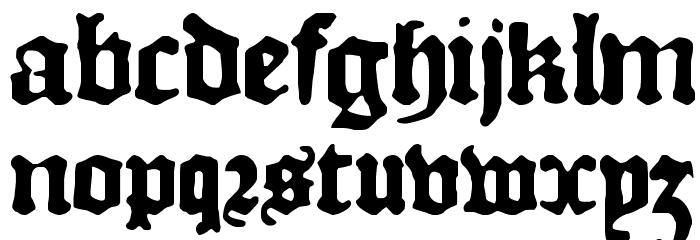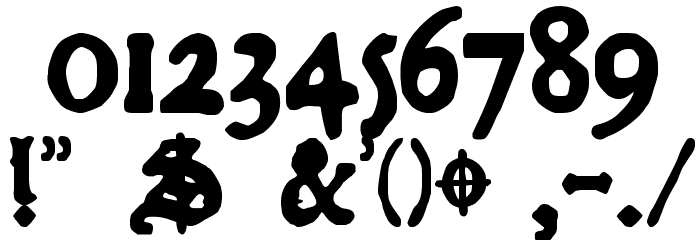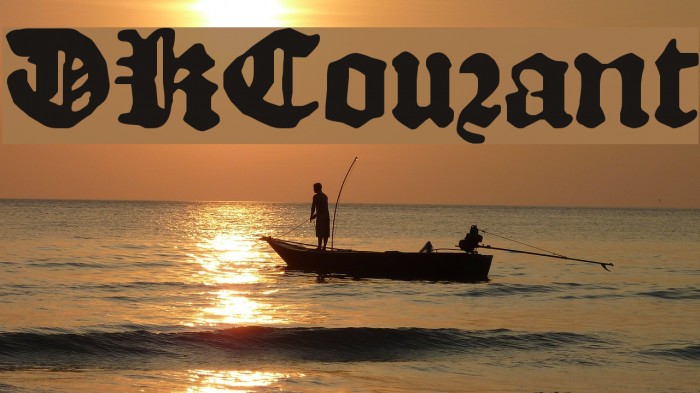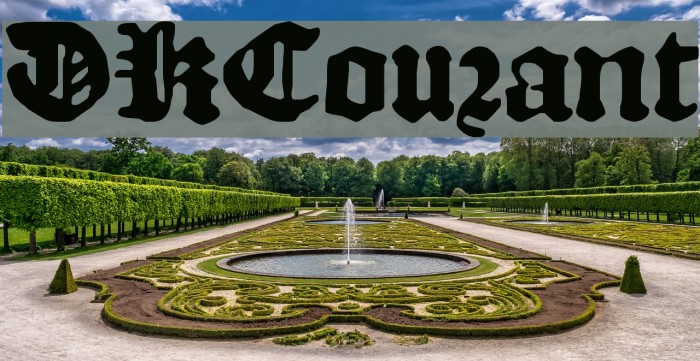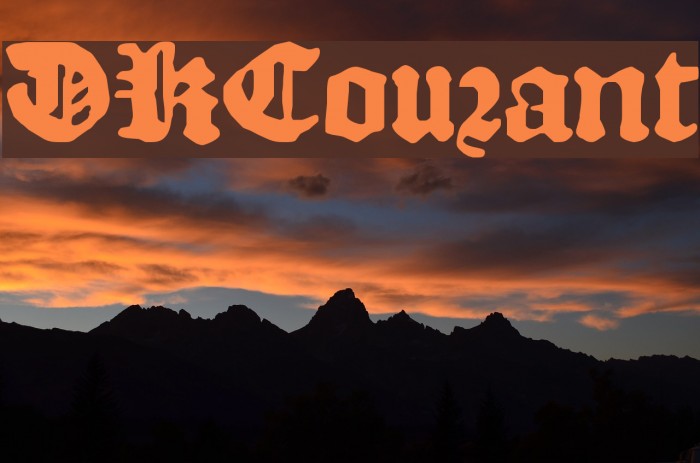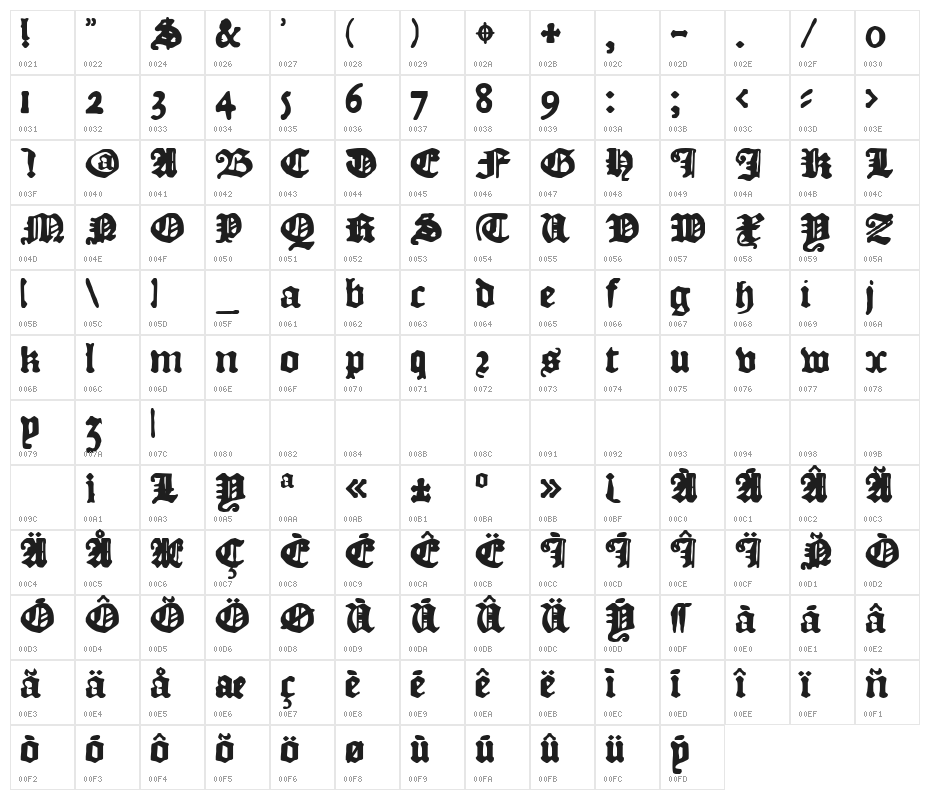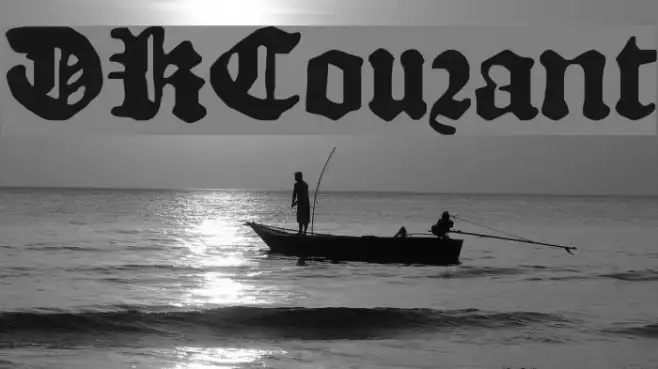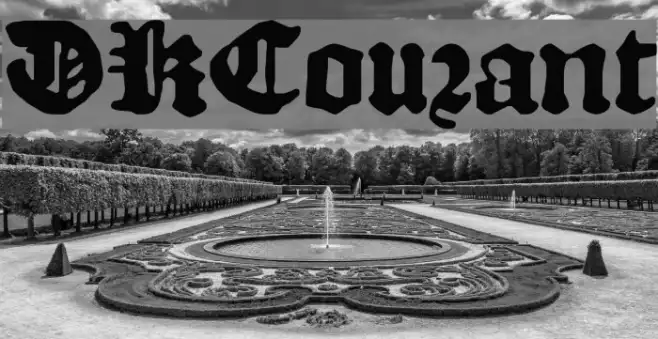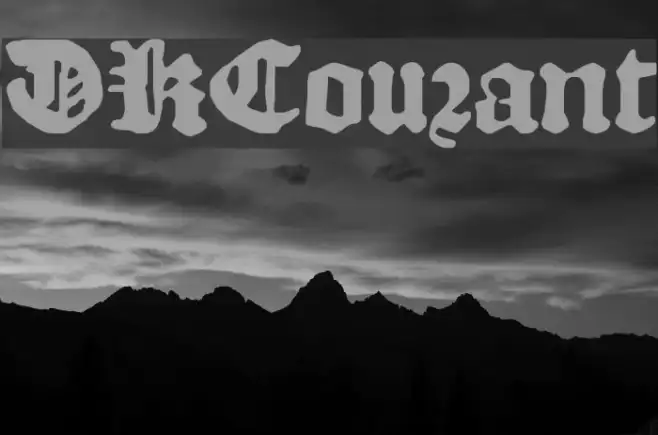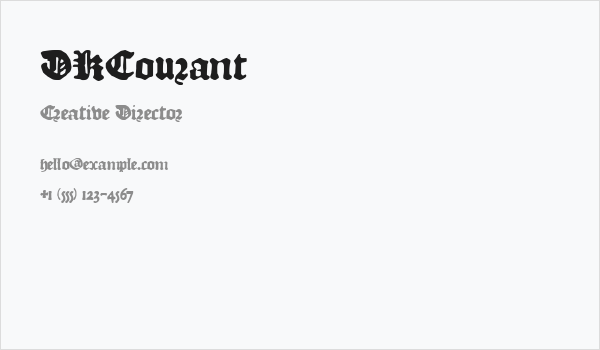
DKCourant Font
This font embodies a traditional and ornate style, reminiscent of medieval script. The characters are bold and heavily stylized, featuring intricate details and flourishes that give it a distinct, historical appearance. The uppercase letters are particularly elaborate, with sharp angles and decorative serifs that enhance its gothic aesthetic. The lowercase letters maintain the same level of detail, ensuring consistency across the typeface. Numbers and special characters are equally ornate, fitting seamlessly with the overall design. This font is ideal for projects that require a touch of antiquity and elegance.
A bold, gothic-style font with intricate details and a medieval flair.
- Proposed Projects: Suitable for historical themed designs, book covers, posters, and branding that requires a vintage or gothic touch.
- Overall Style: Vintage
- Use Case: Headlines, Logos, Decorative text